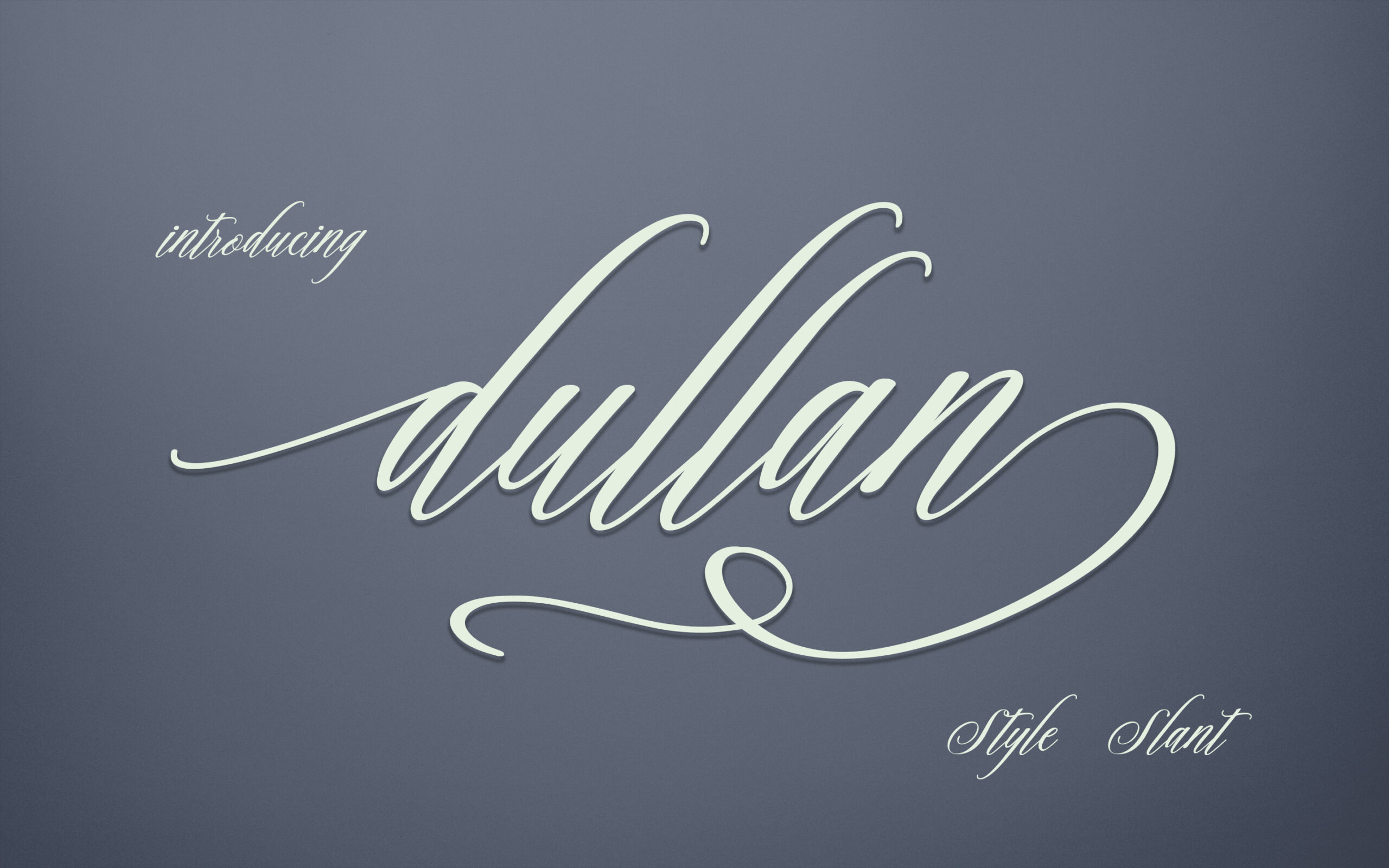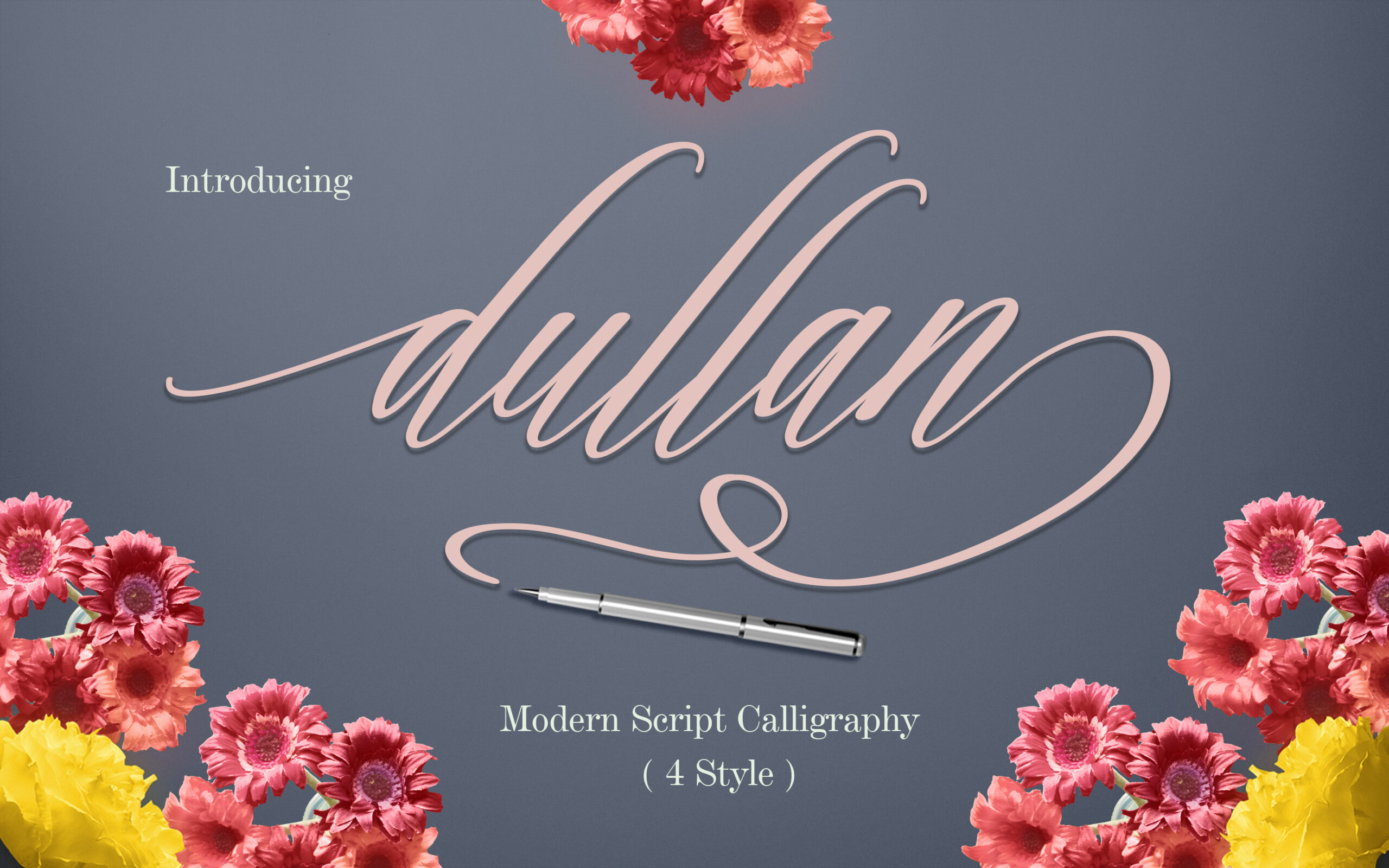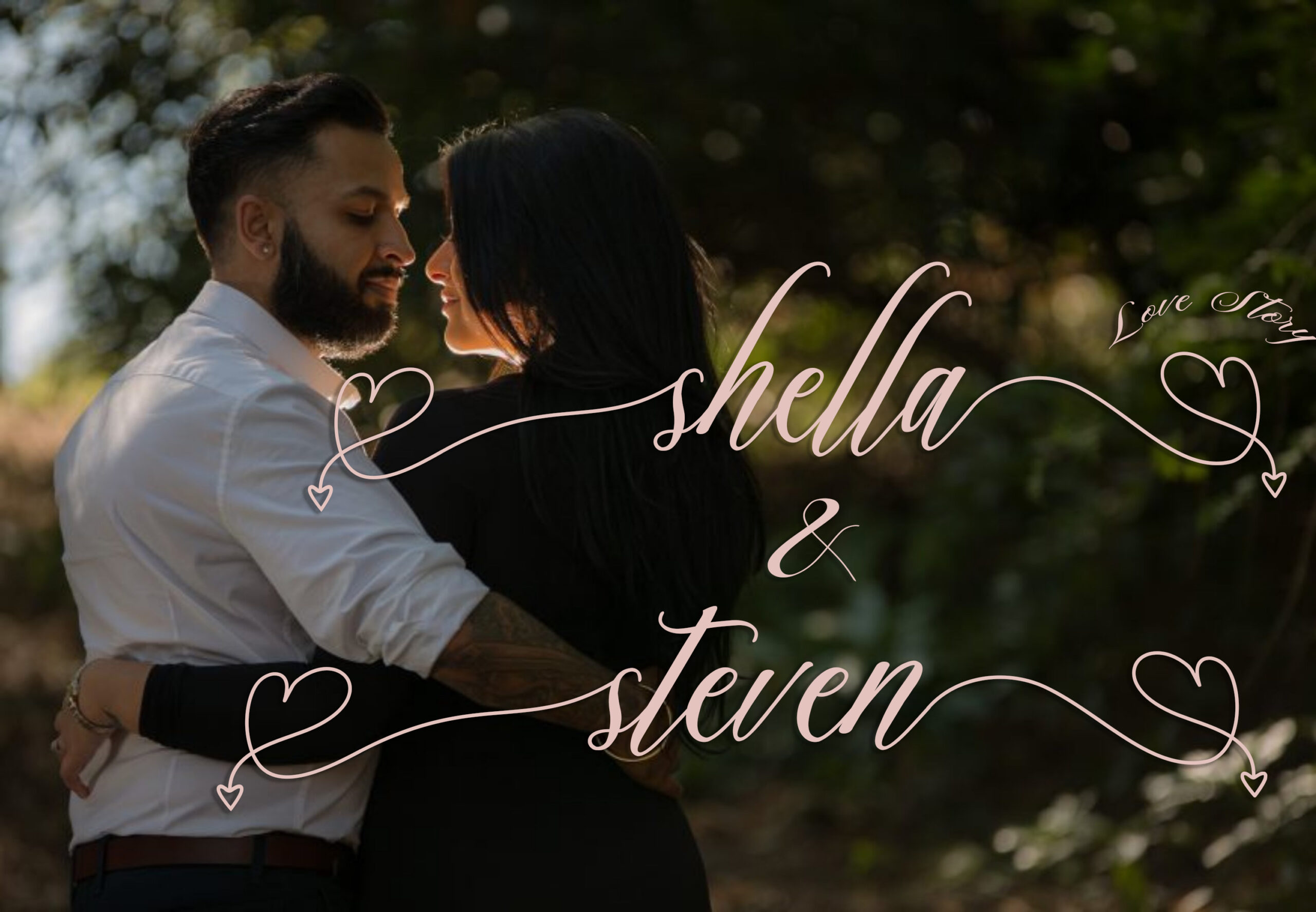
Dullan Font
About Dullan Font
Dullan is a modern calligraphy style font family that comes with 4 stunning fonts:
Dullan Script Regular
Dullan Script Bold
Dullan Script Slant
Dullan Script Collage
The Dullan font family is packed with stunning swashes, extras, multilingual support and many OpenType features.